25+ Best Beach Fonts
Capture the laid-back vibe and sunny disposition of coastal life with our beach fonts collection. These fonts are inspired by the casual, breezy style of beach culture, perfect for designs related to summer, surf, and seaside adventures. Ideal for beach party invitations, surf shop branding, or any project aiming to convey the warmth and relaxation of a day spent by the sea.
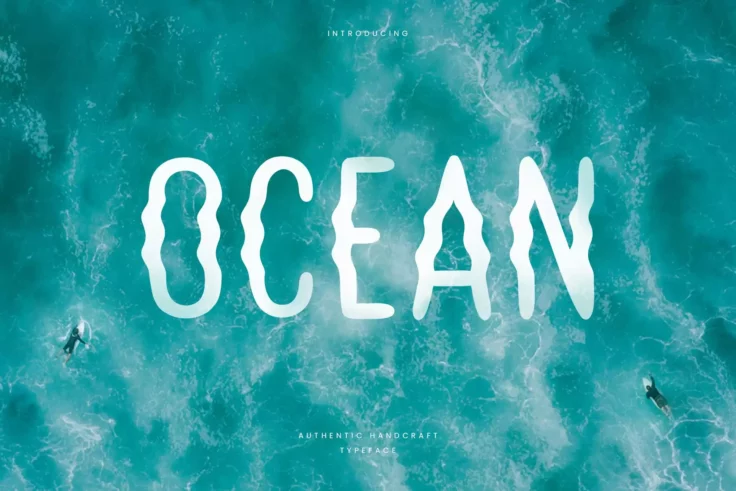
Ocean Hand Summer Font
Dive into an ocean of possibilities with our Ocean Hand Summer Font. Perfectly capturing the laid-back, sun-basking lifestyle of summer vacations, thi...
Love Beach Font
Love Beach font is your modern take on a vintage serif, breathing life and character into your designs. Crafted to bring out the best at display sizes...
Galley Hand-Drawn Pirate Font
Galley is a nautical-themed font that also looks perfect for pirate-themed designs. It has a classic hand-drawn character design with both uppercase a...
Boomerang Hawaiian Retro Font
Boomerang is an all caps Hawaiian inspired typeface. This mid century inspired font is perfect advertisings, branding, album covers, apparel, business...
Sunrise Waves Font
The Sunrise Waves Font invigorates your design with a splash of beachy positivity. This unique font exudes a relaxed aesthetic with noticeable imperfe...
Summer Beach Font
The Summer Beach Font overflows with warmth and exuberance, encapsulating that jovial holiday spirit. This sunny display font is particularly suited t...
Malibu Summer Camp Font
Introducing the Malibu Summer Camp Font, a typeface that can add some sunshine into your design projects. Crafted to evoke the laid-back aura of summe...
Underwater Beach-Themed Font
Dive into a world of creativity and adventure with the Underwater Beach-Themed Font. This font carries the essence of underwater exploration and beach...
Beach Lemons Font
Complement all your creative projects with the refreshing Beach Lemons-Playful Summer Font. This vibrant typeface features an array of lower case and ...
Beach Vibe Summertime Font
Bring the essence of summer to your design projects with Beach Vibe Summertime Font. This font encapsulates the energy of the seaside, with elements o...
Patahola Font
Patahola is a truly exceptional typeface that boasts a one-of-a-kind hand-drawn letter design. This font family includes six different styles, includi...
Beach Sound Summertime Font
Discover the harmonic blend of old and new with Beach Sound Summertime Font! Crafted intricately by ikiikowrk, this typographic gem carries both a mod...
Summer Wednesday Font
Revel in the carefree spirit of summer with the “Summer Wednesday” Font. This handwritten display typeface draws its inspiration from the ...
This Sunshine Font
Proudly presenting the vibrant and lively font, “This Sunshine.” Created with love, this cute monoline script font is just what you need f...
Summer Surfing Font
Unveiling “Summer Surfing,” a powerful, dual-fronted serif cum sans serif font, designed to encapsulate the pure adrenaline rush of surfin...
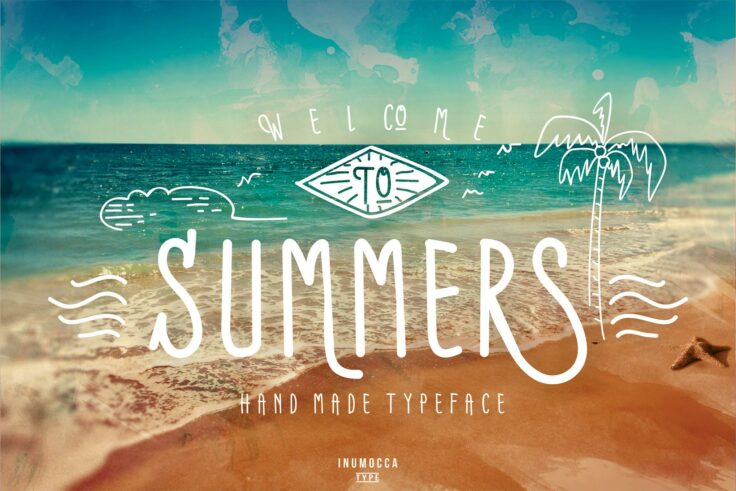
Summers Stylish Beach Font
Introducing the Summers Stylish Beach Font, a handcrafted typeface as inviting as a summer’s day. Designed to give your projects a breezy, beach...
Beach Party Font
Imagine the sun-soaked vibe of a frolicking beach party captured in letters, that’s the Beach Party Font. This playful, bold font adds an elemen...
San Luis Beach Font
Indulge in the laid-back elegance of the San Luis Beach Font. This slightly rugged script was crafted with the cool central California coast in mind. ...
Hello Beach Font
Introducing the Hello Beach Font, a sophisticated and personable handcrafted typeface. With its inherent charisma and flair, it effortlessly suits a v...
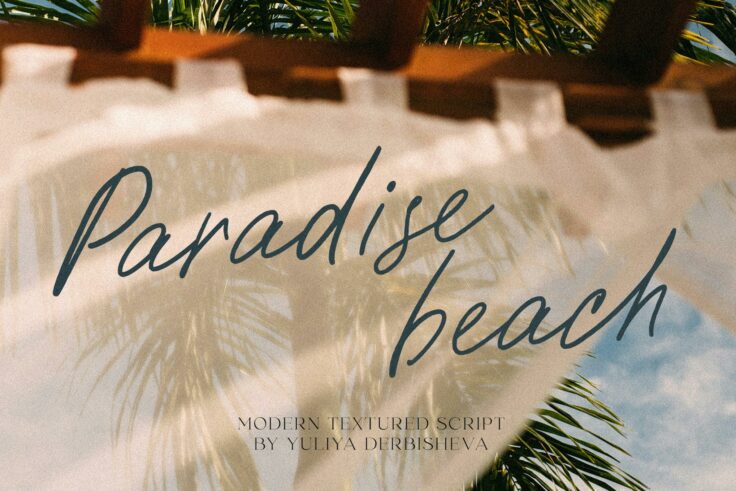
Paradise Beach Font
Dive into the beauty of handwriting with the Paradise Beach font, a modern textured script font with a uniquely breezy feel. Evoking the relaxed charm...
Santarino Summertime Font
Santarino Summertime Font is the epitome of modern and fresh typography. Designed in the vein of a brush font, it flawlessly captures the essence of s...
Morning Beach Font
The Morning Beach Font, inspired by the psychedelic style and the endearing scribbles of children, is a fancy styled font with a playful touch. Its un...
Beach Holiday Coastal Font
On your next creative venture, bring the beach vibes straight to your project with the Beach Holiday – Handwritten Font. This lively and dynamic...
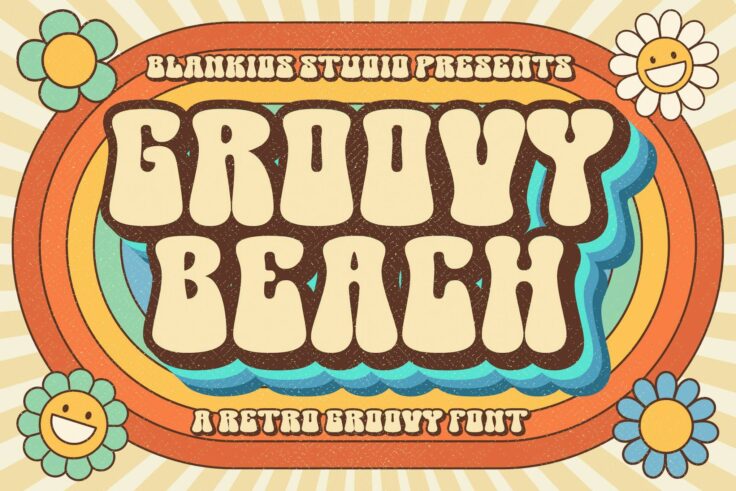
Groovy Beach Font
Welcome the Groovy Beach Font, a typography that effortlessly emanates a retro feel. Inspired by bold fonts from an older generation, this creative as...
Palm Beach Font Duo
Brimming with versatility, Palm Beach Font Duo is a delightful typographic package that enhances any creative project. From vintage posters to social ...
FAQs About Beach Fonts
Additionally, testing the font across various mediums and sizes is important to ensure its effectiveness and readability in all intended applications, from digital displays to printed materials. Pairing Beach Fonts with appropriate imagery, colors, and design elements can also enhance the thematic consistency of your project.